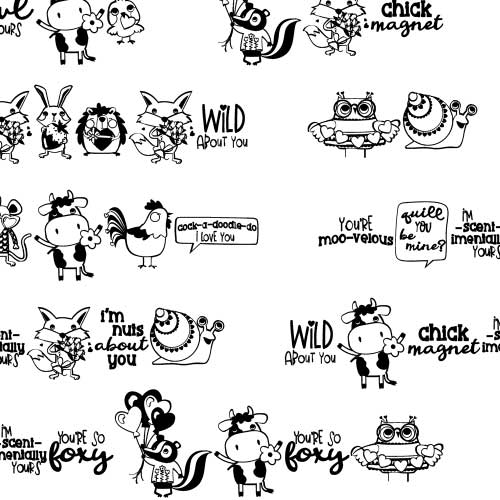
DB Love Menagerie - Too - DB
This adorable doodlebat font features 26 love animals and puns that are perfect for cards, crafts, gifts, planner stickers, scrapbook pages, classrooms, Valentines and more!